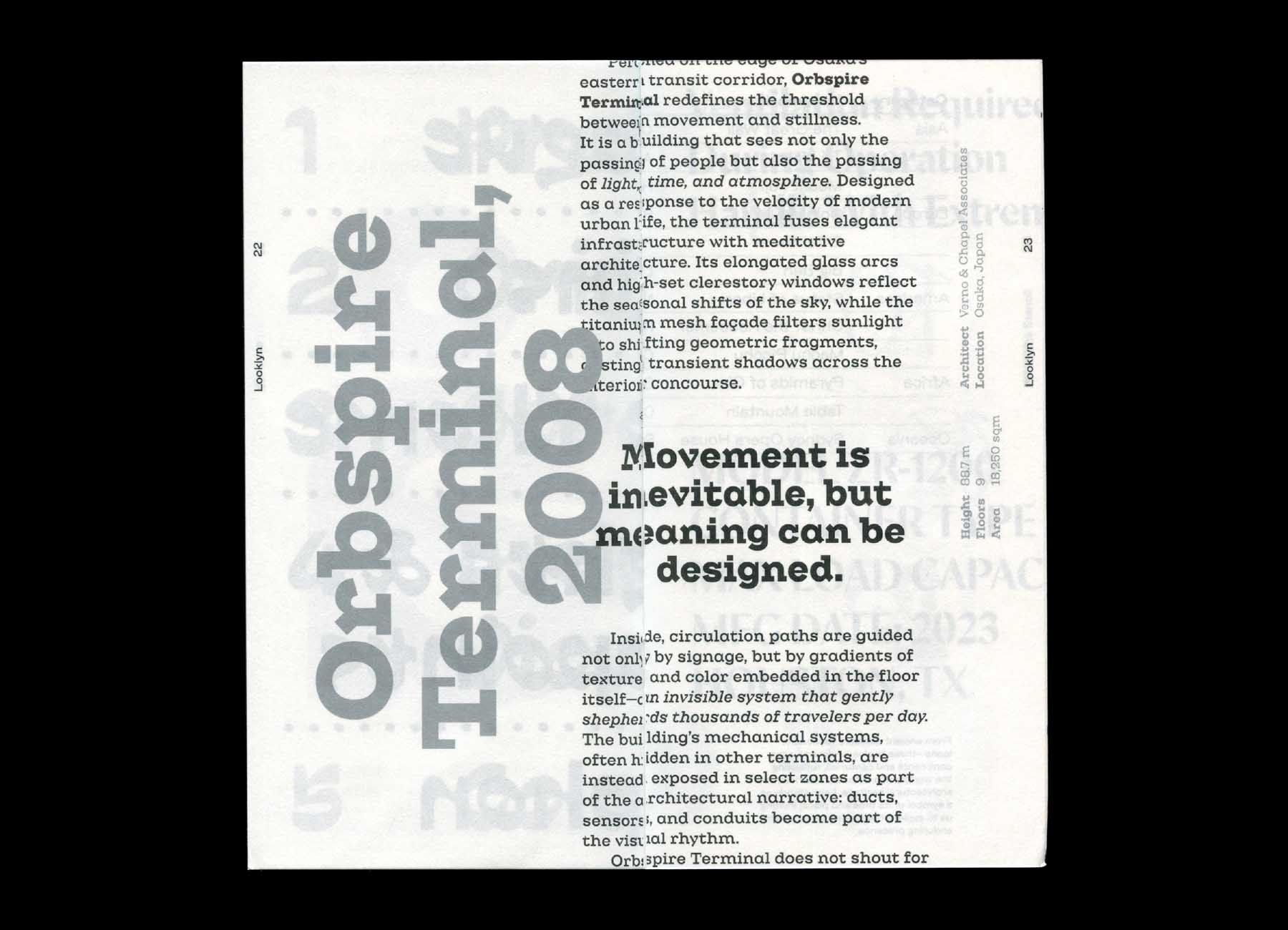
Looklyn is an affable slab with a non-tradition serif weight distribution.
Its extra-thin vertical serifs balance the weight of the body stroke, which creates a nice thick-and-thin rhythm that some other slab typefaces don’t usually have.
The skeleton is geometric and structural, while the open diagonals, such as A, K, V, W, Y, etc are based on handwritten strokes. This hybrid of an architectural skeleton and humanist characteristic gives the typeface a contemporary yet approachable quality.
Looklyn is available in five weights and their corresponding italics.